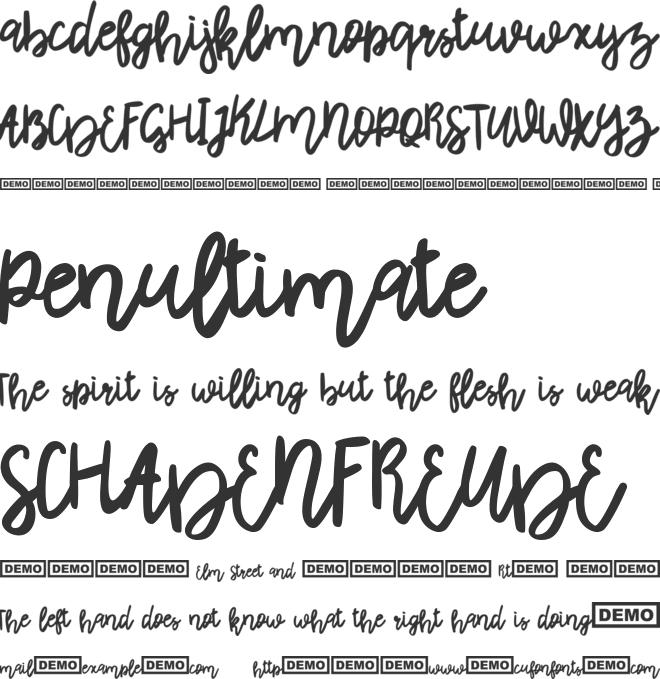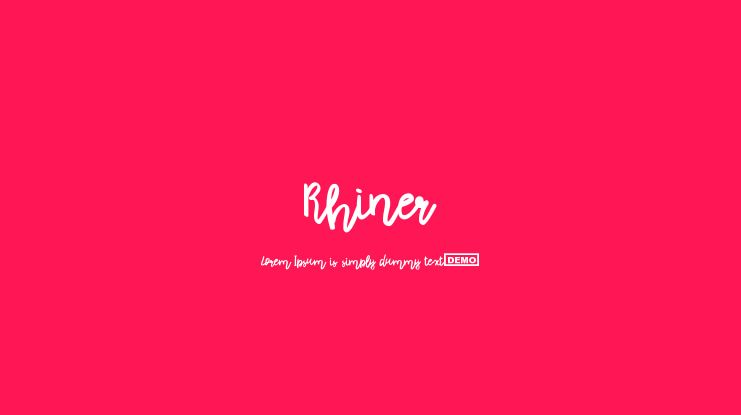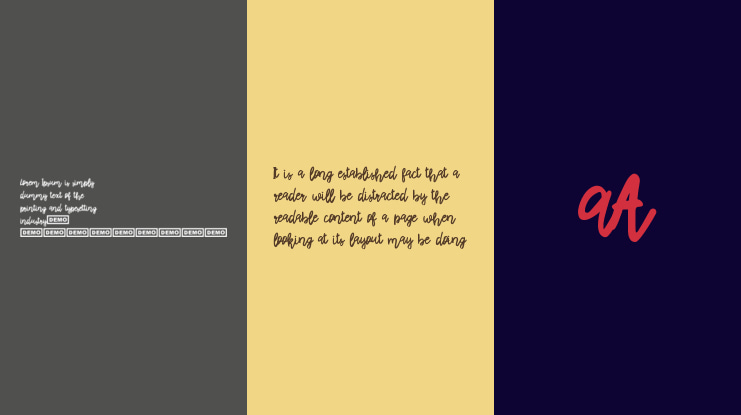
Rhiner Font Family
Introducing my new font Rhiner with its pleasant and elegant style. If you want to add a certain charm, appeal and allure in your projects, Rhiner is just what you need
Full version of Rhiner comes with uppercase, lowercase, standard punctuation, numerals, special letters for most of the European languages and cyrillic typeface.